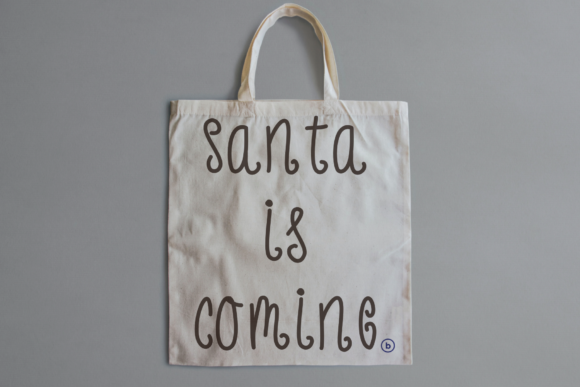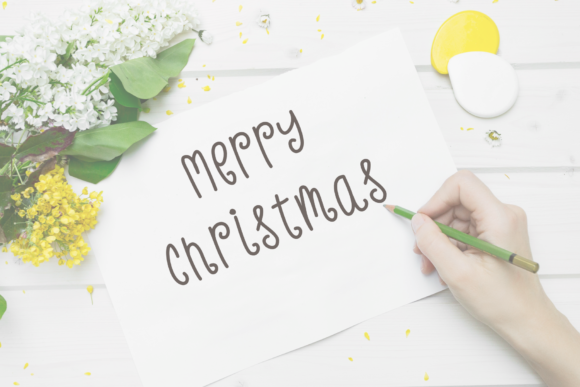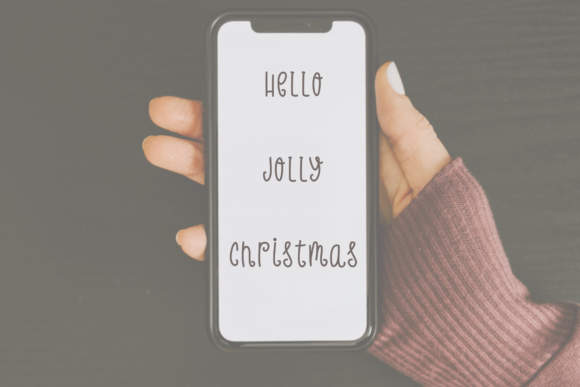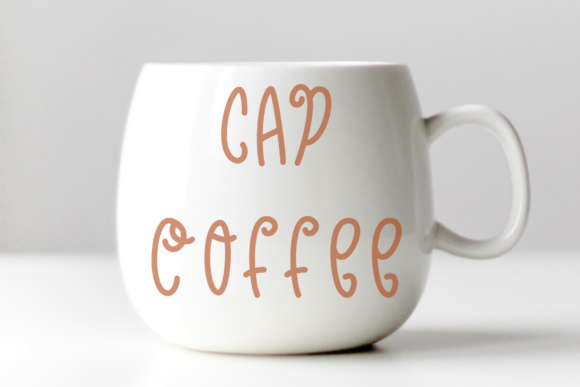
Introducing Christmas Charming Font: The Magical Handwritten Font for Your Holiday Designs
Are you looking for a font that will add a touch of magic to your holiday designs? Look no further than Christmas Charming Font! This adorable handwritten font is perfect for designers and crafters who want to create festive and eye-catching projects. In this article, we’ll take a closer look at Christmas Charming Font and explore its features, benefits, and uses.
What is Christmas Charming Font?
Christmas Charming Font is a cute and magical handwritten font that is sure to make your designs come alive. Every letter has a unique and beautiful touch, which gives the font a personal and whimsical feel. The font is perfect for holiday designs, but it can also be used for a variety of other projects, such as wedding invitations, birthday cards, and more.
Features of Christmas Charming Font
So, what makes Christmas Charming Font so special? Here are just a few of its features:
- Unique and Beautiful Letters: Every letter in Christmas Charming Font has a unique and beautiful touch, which gives the font a personal and whimsical feel.
- Cute and Magical: The font has a cute and magical quality that makes it perfect for holiday designs and other festive projects.
- Handwritten: Christmas Charming Font is a handwritten font, which gives it a personal and organic feel.
- Easy to Read: Despite its whimsical nature, Christmas Charming Font is easy to read, making it perfect for use in a variety of projects.
Benefits of Using Christmas Charming Font
So, why should you use Christmas Charming Font in your designs? Here are just a few benefits:
- Adds a Touch of Magic: Christmas Charming Font adds a touch of magic to your designs, making them perfect for holiday projects and other festive applications.
- Stand Out from the Crowd: The unique and beautiful letters in Christmas Charming Font will help your designs stand out from the crowd and grab attention.
- Versatile: Christmas Charming Font can be used in a variety of projects, from holiday cards and invitations to website headers and more.
Uses for Christmas Charming Font
So, what can you use Christmas Charming Font for? Here are just a few ideas:
- Holiday Cards and Invitations: Christmas Charming Font is perfect for holiday cards and invitations, adding a touch of magic and whimsy to your designs.
- Website Headers and Graphics: The font can be used to create eye-catching website headers and graphics that will grab attention and add a touch of personality to your site.
- Social Media Graphics: Christmas Charming Font can be used to create festive and eye-catching social media graphics that will help your posts stand out.
- Crafting and Scrapbooking: The font is also perfect for crafters and scrapbookers who want to add a personal touch to their projects.
Tips for Using Christmas Charming Font
Here are a few tips for using Christmas Charming Font:
- Use it Sparingly: While Christmas Charming Font is beautiful, it can be overwhelming if used too much. Use it sparingly to add a touch of magic to your designs.
- Pair it with Other Fonts: Christmas Charming Font can be paired with other fonts to create a unique and eye-catching look.
- Experiment with Colors: The font looks great in a variety of colors, so don’t be afraid to experiment and find the perfect color for your design.
Christmas Charming Font is a beautiful and magical handwritten font that is perfect for holiday designs and other festive projects. With its unique and beautiful letters, cute and magical quality, and ease of use, it’s a great addition to any designer’s toolkit. Whether you’re a designer, crafter, or scrapbooker, Christmas Charming Font is sure to add a touch of magic to your projects.